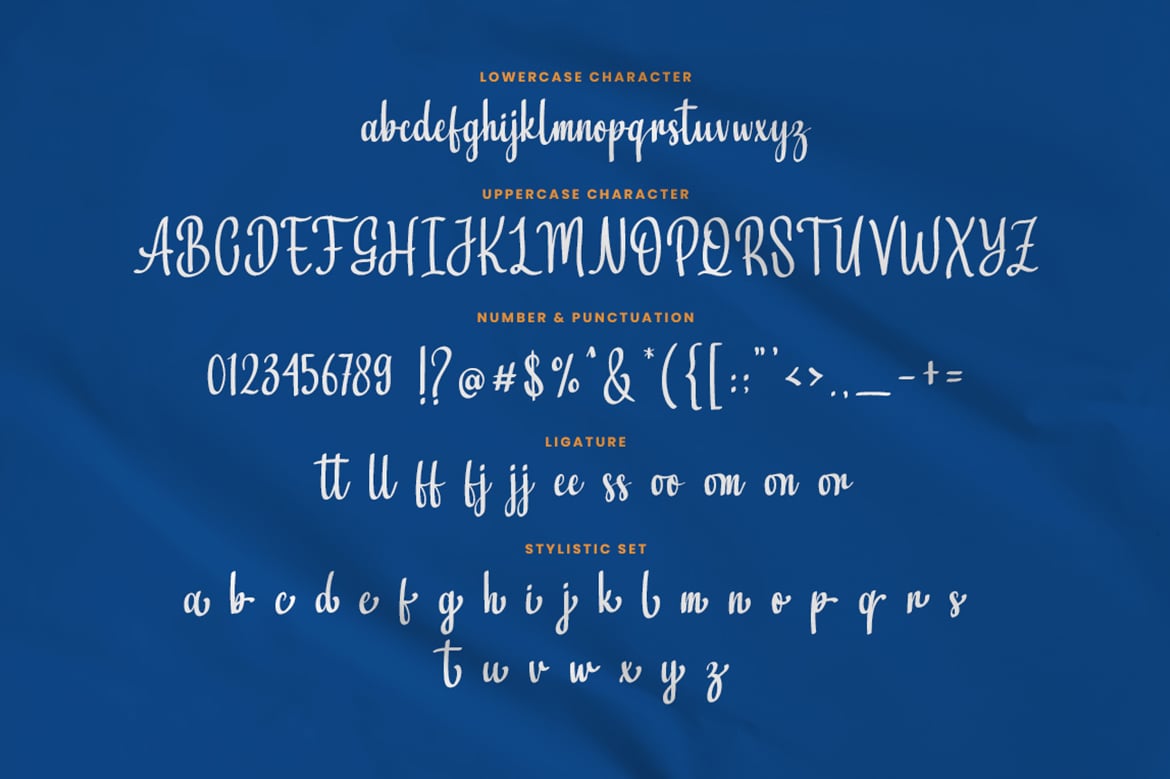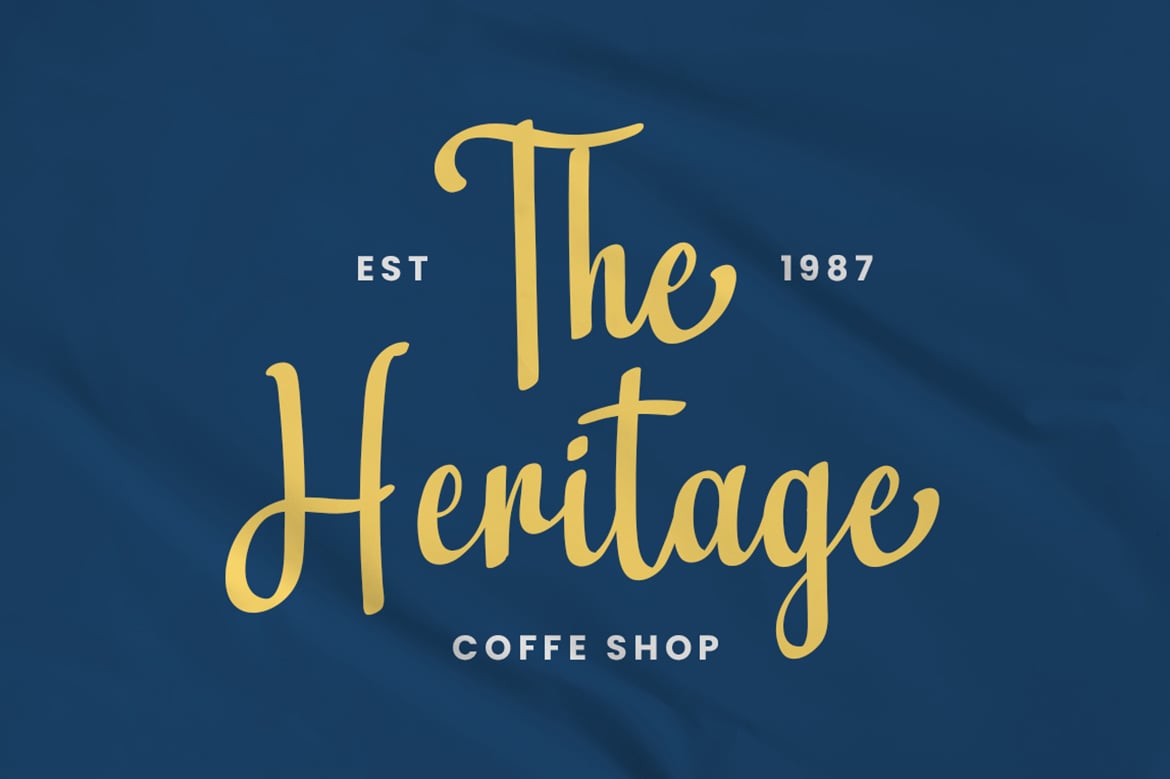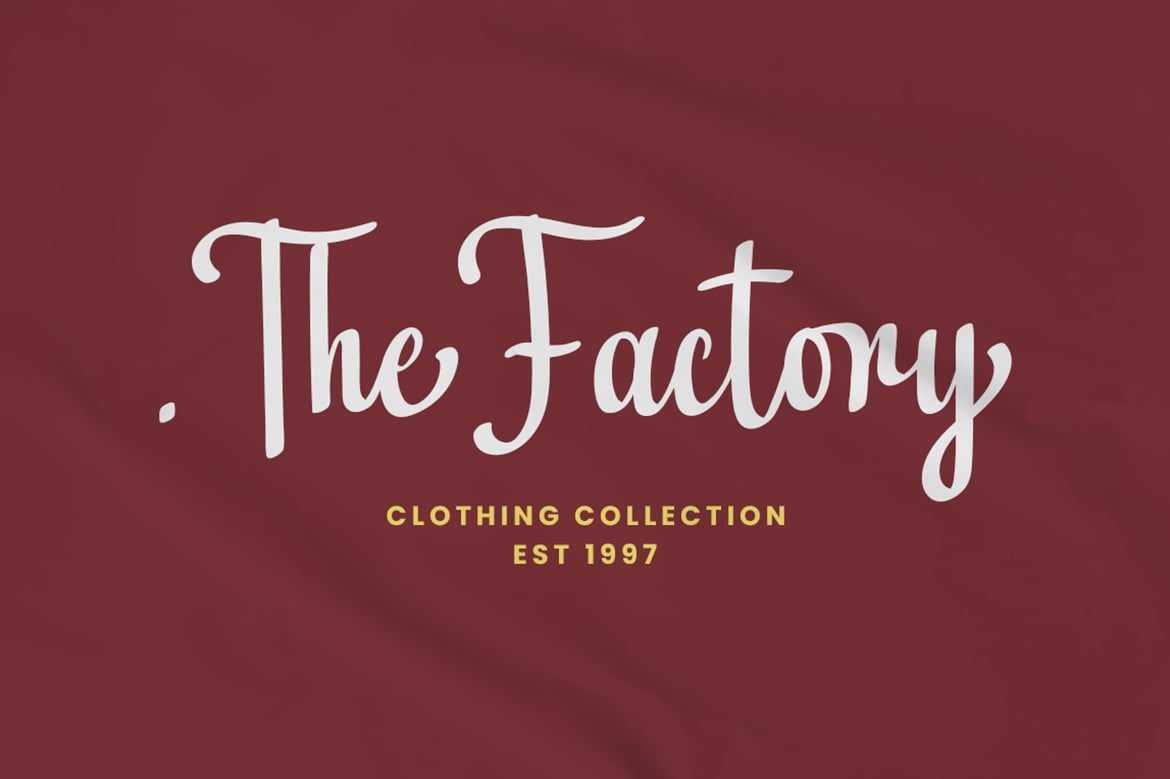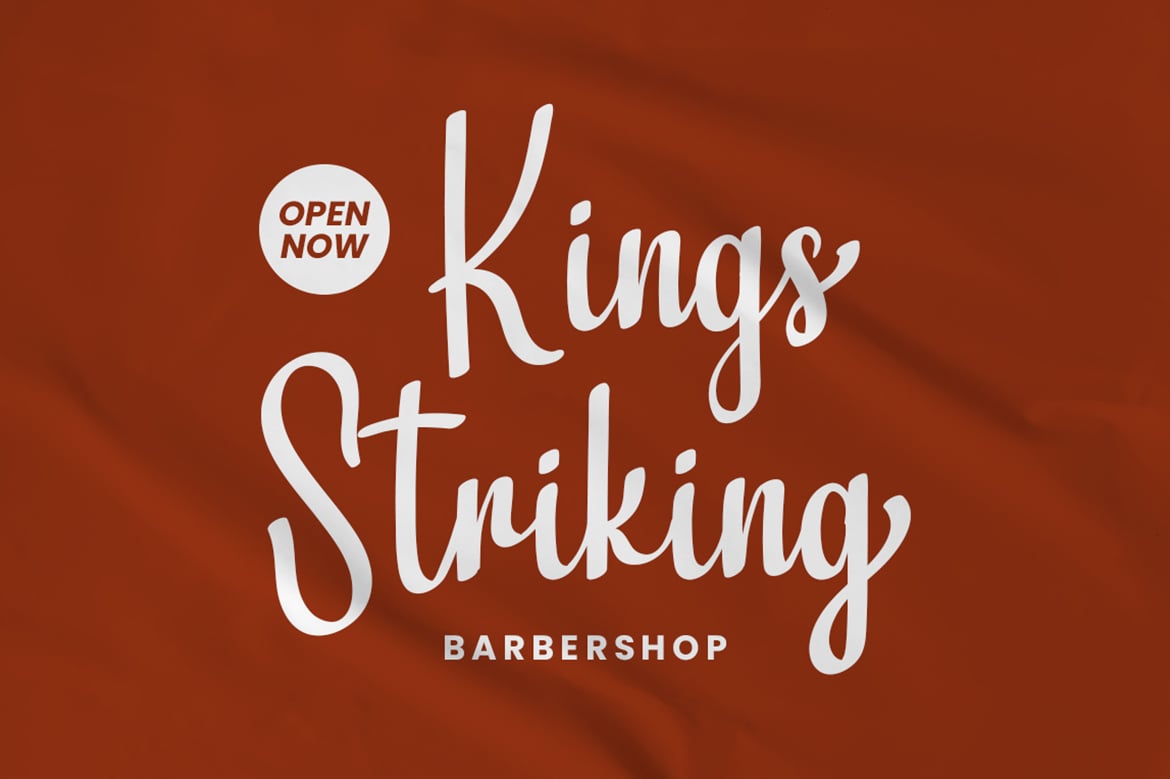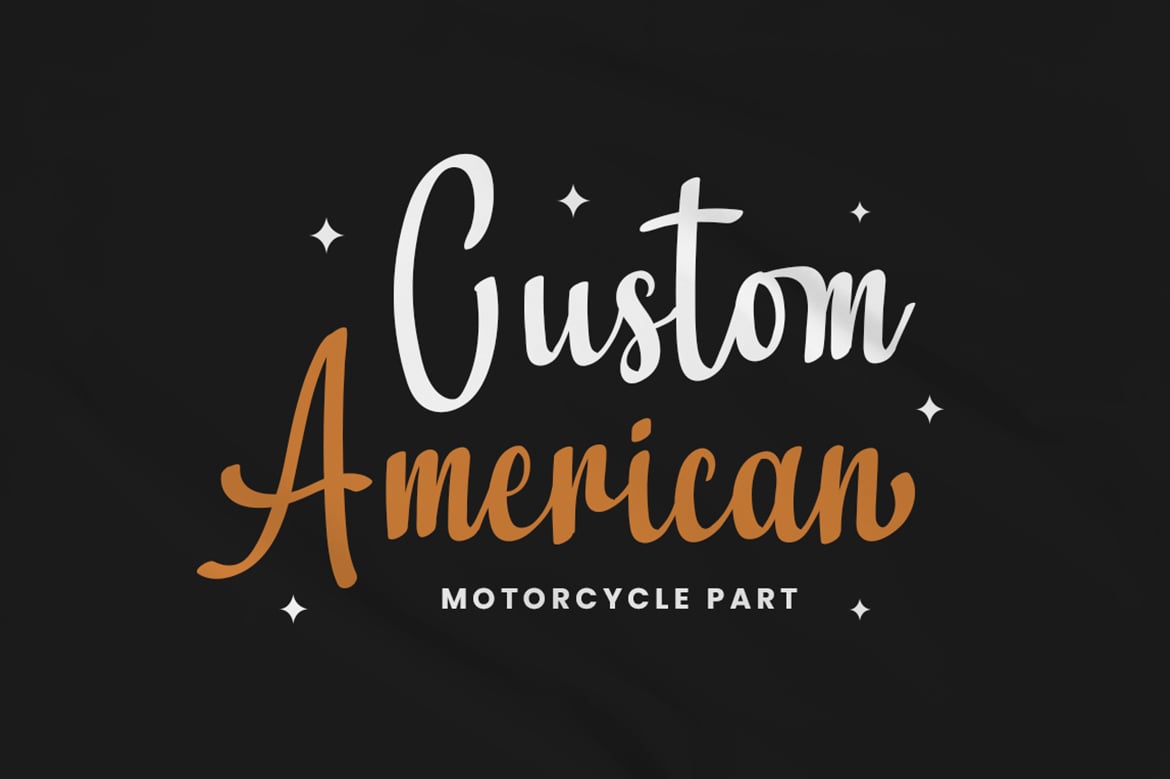
The Bandits – Vintage Lettering Font
The Bandits is a vintage and hand lettering script font. It maintains its classy calligraphic influences while feeling contemporary and fresh. Fall in love with it and bring your projects to the highest levels!
- Stylistic Set